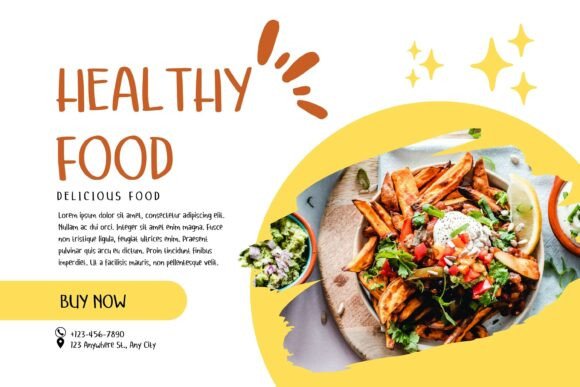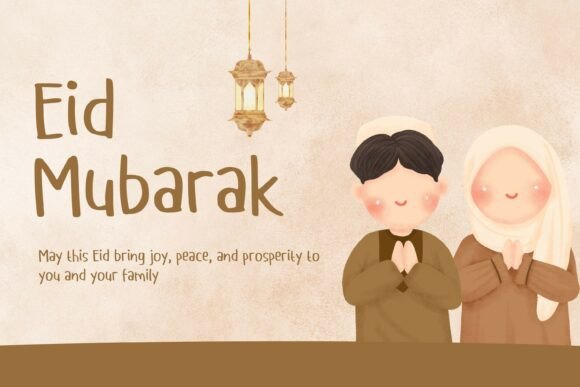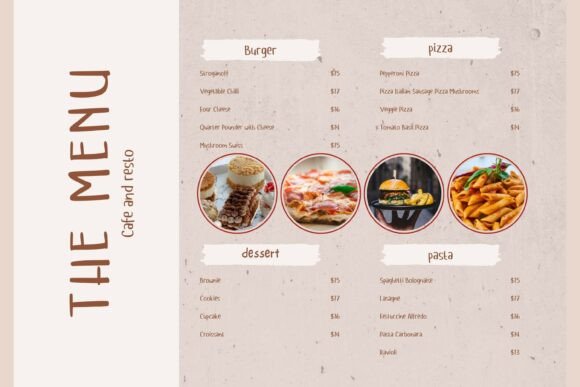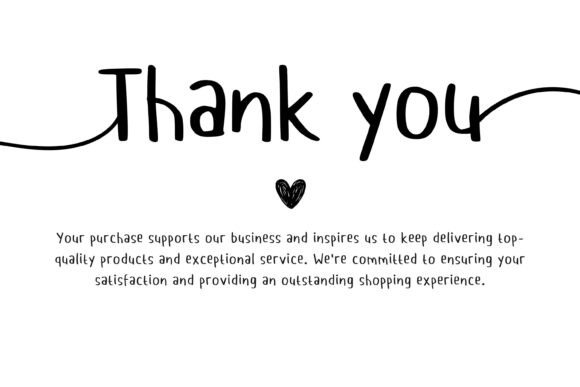
Chily Meatballs – A Spicy Handwritten Delight
Are you looking for a font that can bring warmth, personality, and playful charm to your projects? Look no further than Chily Meatballs, a casual handwritten font that feels like it was scribbled with love. This delightful font is perfect for designers and crafters who want to add a touch of whimsy and friendliness to their work.
The Characteristics of Chily Meatballs
Chily Meatballs combines quirky curves and a relaxed baseline, making it a perfect choice for a variety of design projects. Its hand-drawn feel makes every word look authentic, friendly, and deliciously fun. The font’s casual and playful nature makes it ideal for restaurant branding, cafe menus, packaging, food-related designs, and cozy digital content.
Perfect for Food-Related Designs
Chily Meatballs is a great choice for designers who work on food-related projects. Whether you’re designing a rustic menu, a cheerful thank-you card, or branding for a foodie business, this font delivers approachable character and visual flavor. Its legibility and welcoming nature make it perfect for both digital and print projects that need a handwritten touch.
What Makes Chily Meatballs Special?
- Handwritten feel: Chily Meatballs has a genuine handwritten feel that makes it perfect for designs that require a personal touch.
- Quirky curves: The font’s quirky curves add a playful and whimsical touch to any design.
- Relaxed baseline: The relaxed baseline gives the font a casual and laid-back feel.
- Legible and welcoming: Chily Meatballs is easy to read and has a welcoming nature that makes it perfect for a variety of design projects.
How to Use Chily Meatballs
Chily Meatballs can be used in a variety of design projects, including:
- Restaurant branding: Use Chily Meatballs to create a unique and memorable brand identity for your restaurant.
- Cafe menus: Add a touch of whimsy and friendliness to your cafe menus with Chily Meatballs.
- Packaging: Use Chily Meatballs to create eye-catching and playful packaging for your food products.
- Food-related designs: Chily Meatballs is perfect for designing food blogs, cookbooks, and other food-related content.
- Cozy digital content: Use Chily Meatballs to create engaging and welcoming digital content, such as social media posts and email newsletters.
Why Choose Chily Meatballs?
Chily Meatballs is a great choice for designers and crafters who want to add a touch of personality and whimsy to their work. Here are just a few reasons why:
- Unique and playful: Chily Meatballs is a one-of-a-kind font that adds a playful and whimsical touch to any design.
- Easy to read: Despite its playful nature, Chily Meatballs is easy to read and legible.
- Versatile: Chily Meatballs can be used in a variety of design projects, from restaurant branding to digital content.
Chily Meatballs is a spicy handwritten delight that brings warmth, personality, and playful charm to any design project. Its hand-drawn feel, quirky curves, and relaxed baseline make it perfect for food-related designs, restaurant branding, and cozy digital content. With its legibility, welcoming nature, and versatility, Chily Meatballs is a great choice for designers and crafters who want to add a touch of whimsy and friendliness to their work.